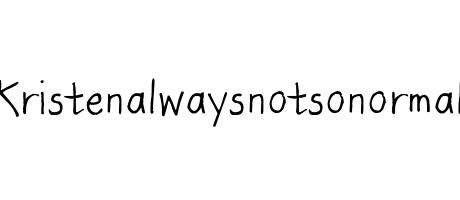
Kristenalwaysnotsonormal
Kristenalwaysnotsonormal: A whimsical, handwritten font brimming with playful imperfection. Its uneven strokes and slightly erratic spacing evoke a sense of carefree energy, perfect for adding a touch of charming disorder to designs needing a unique, handcrafted feel. It whispers of personality and individuality.